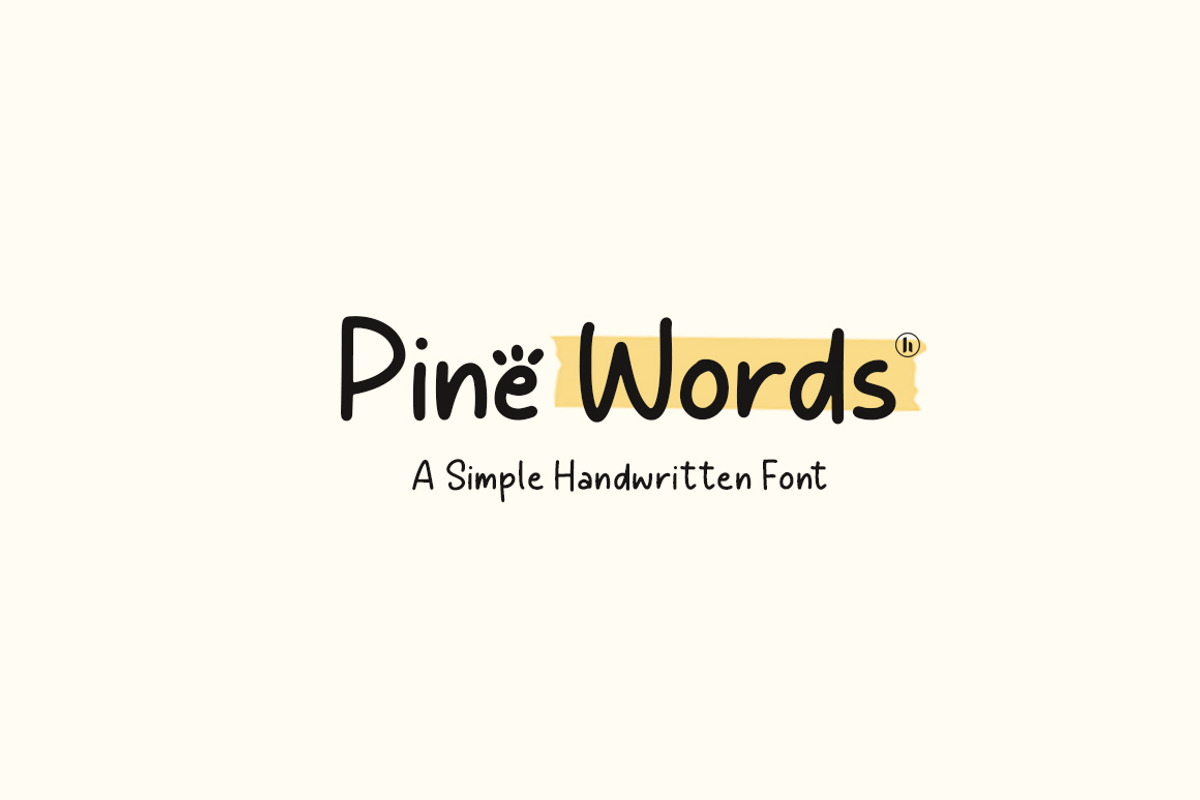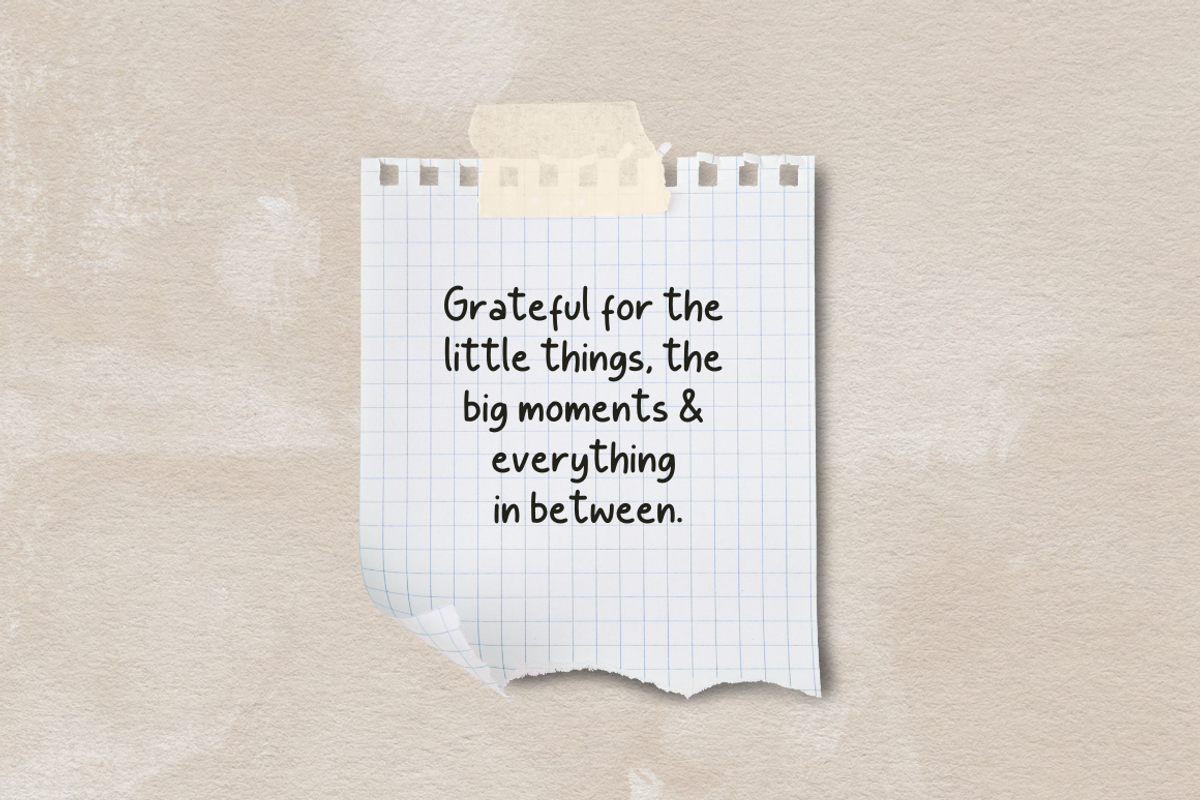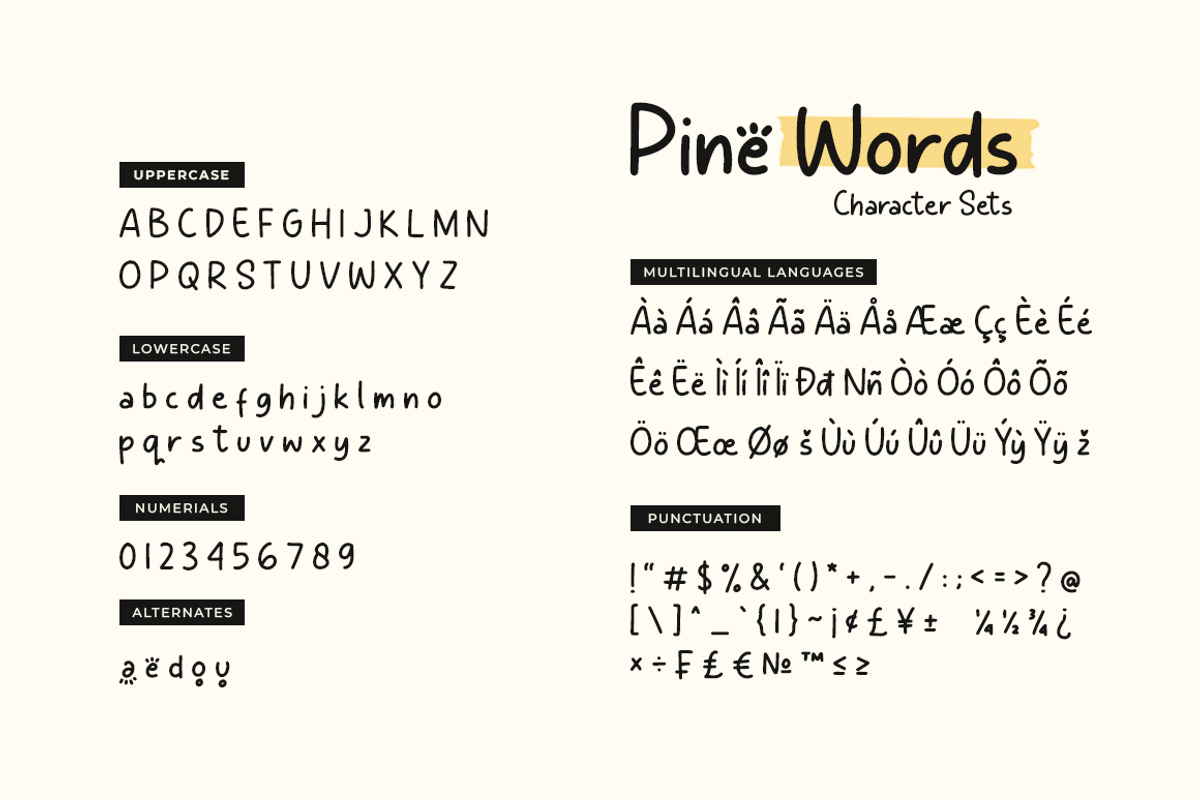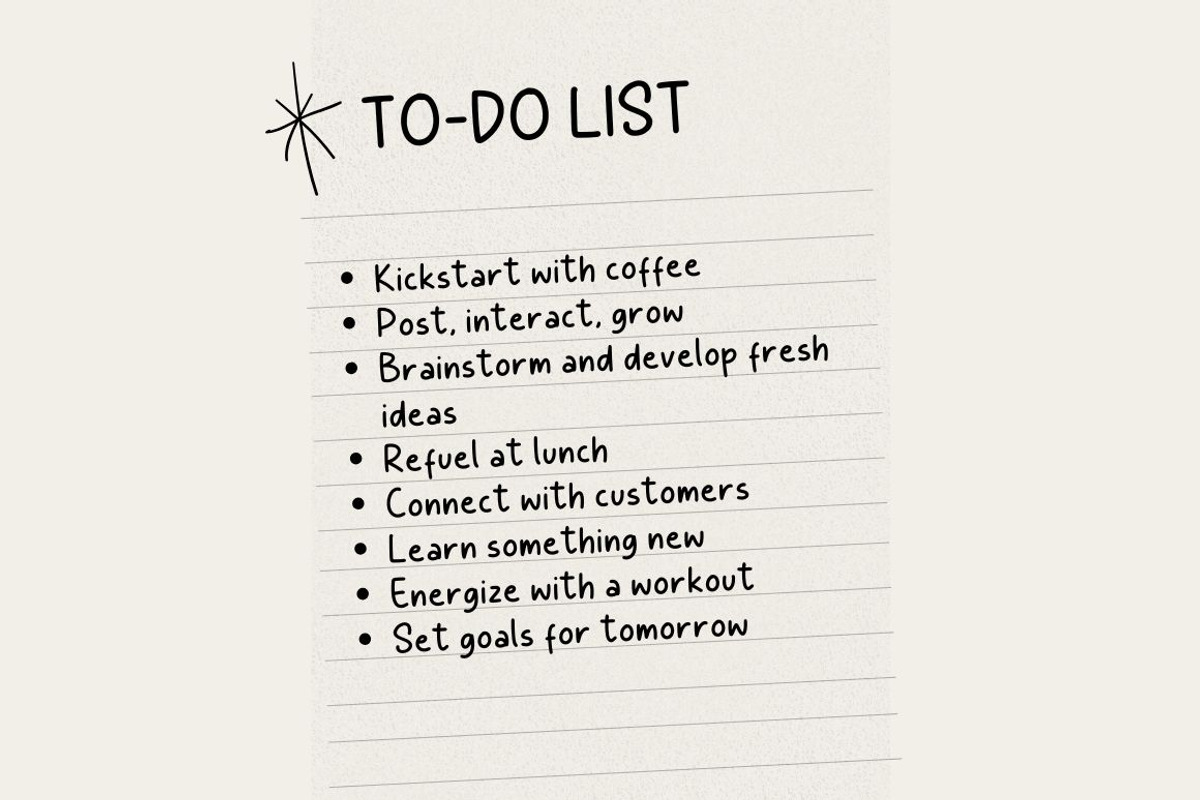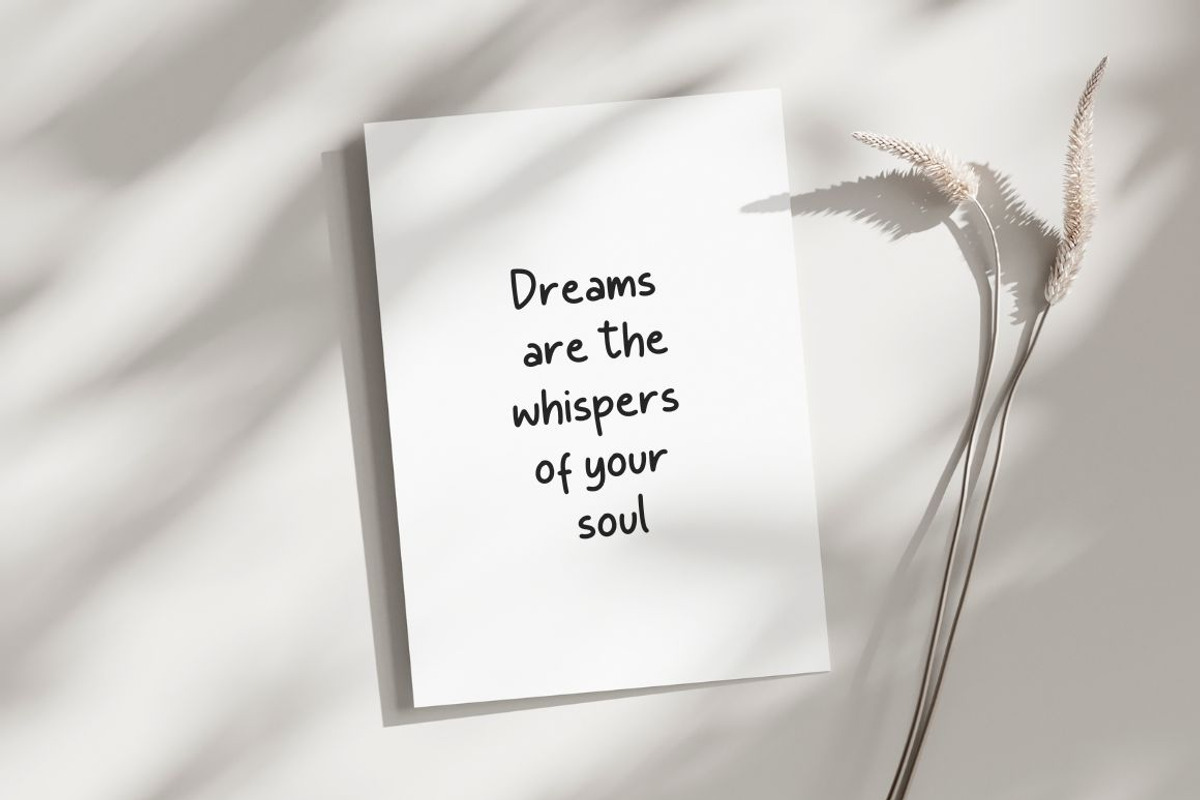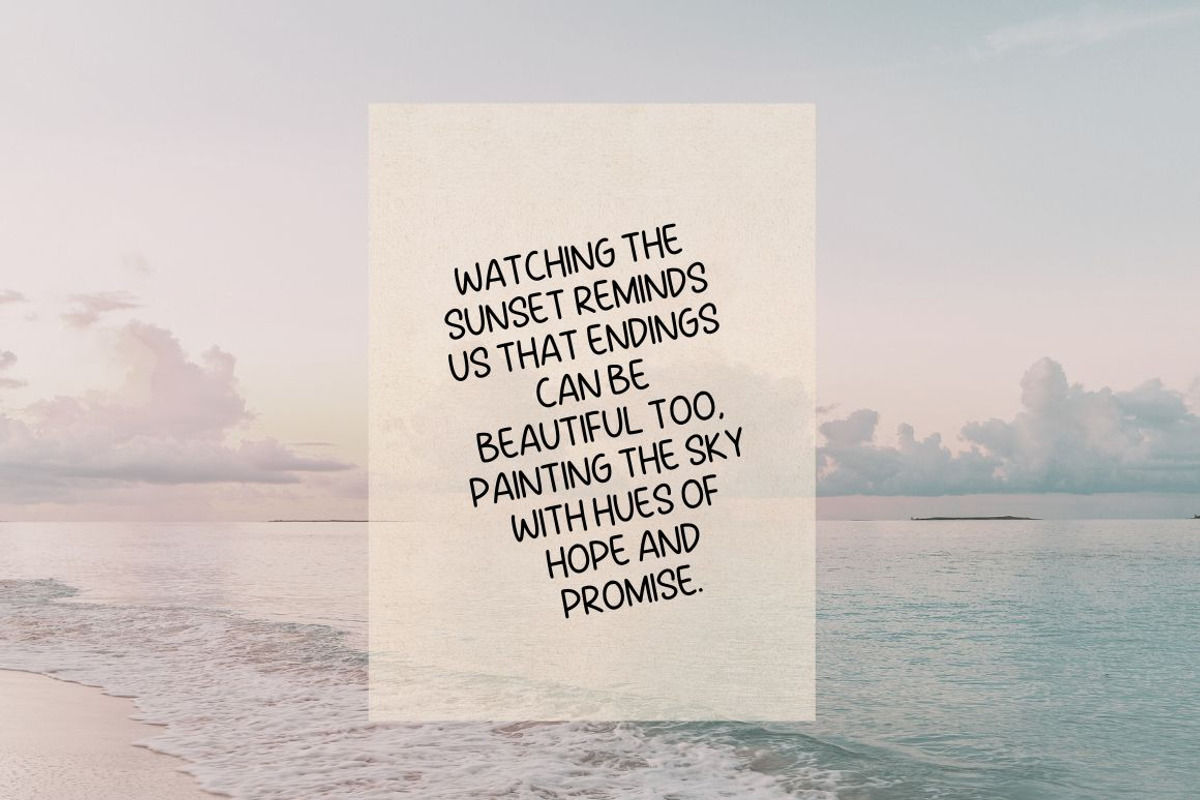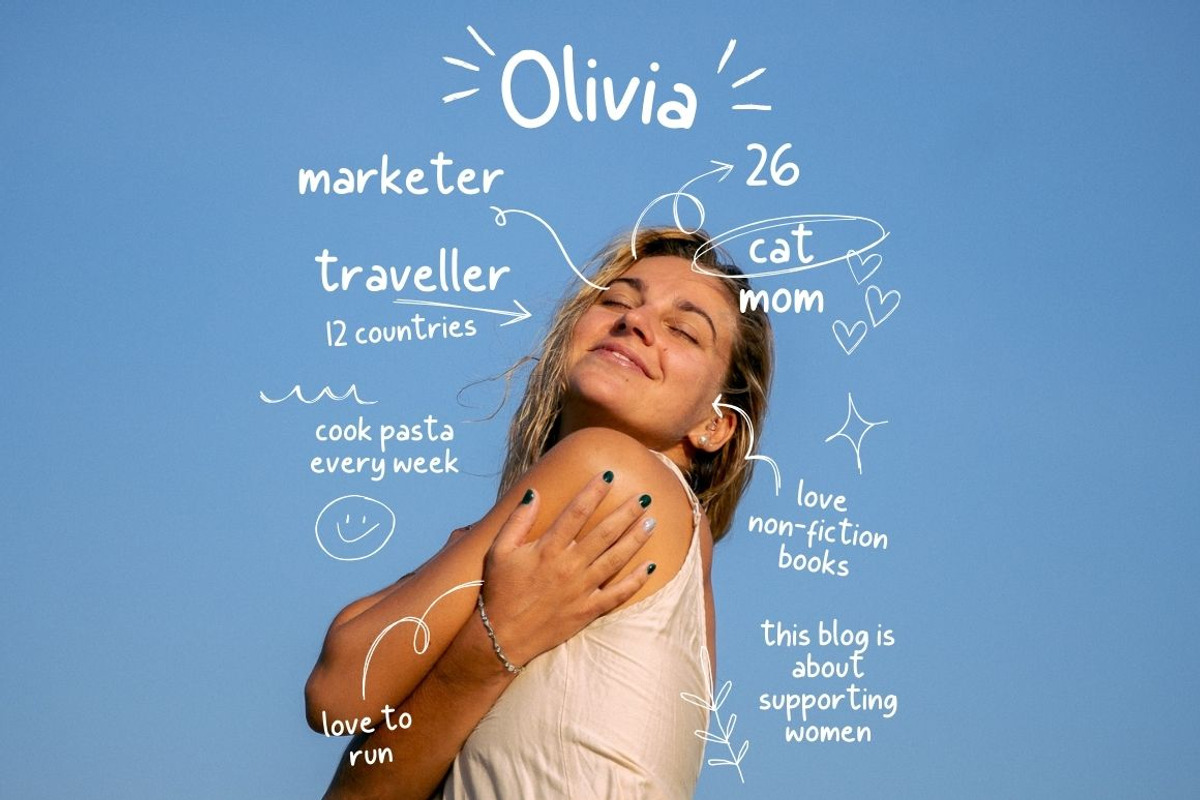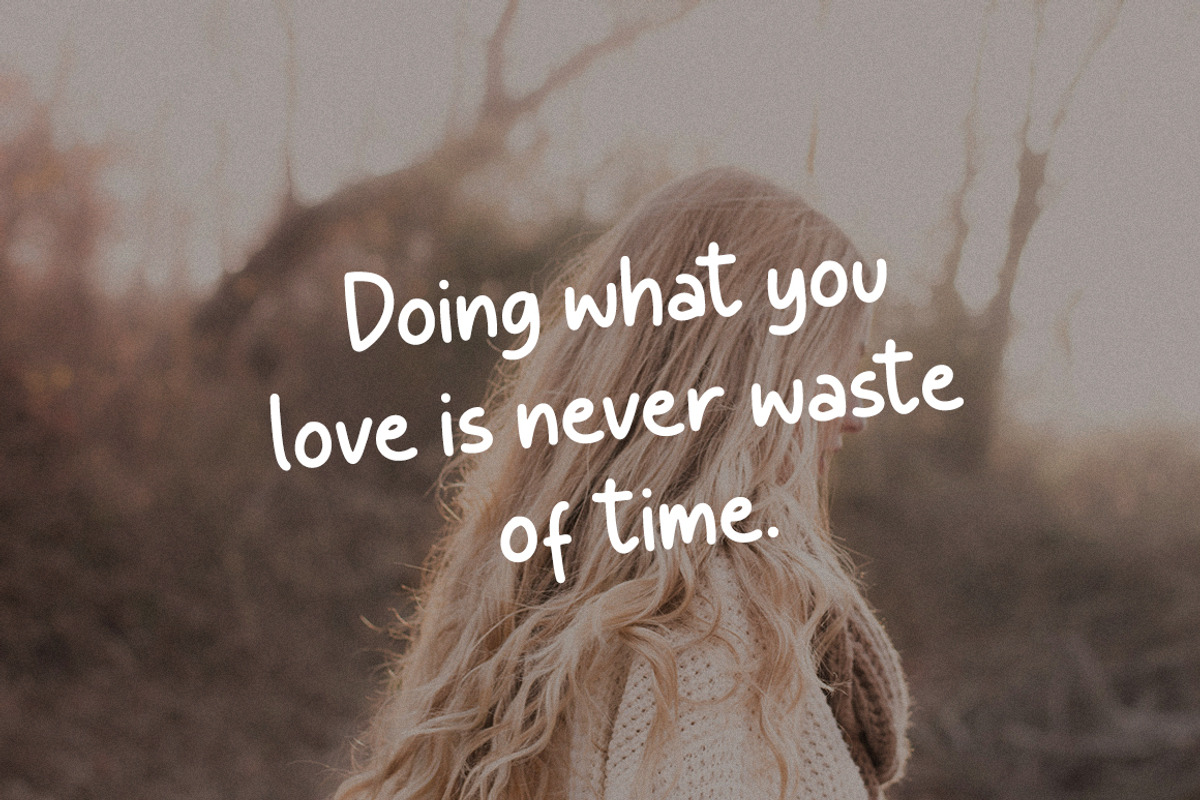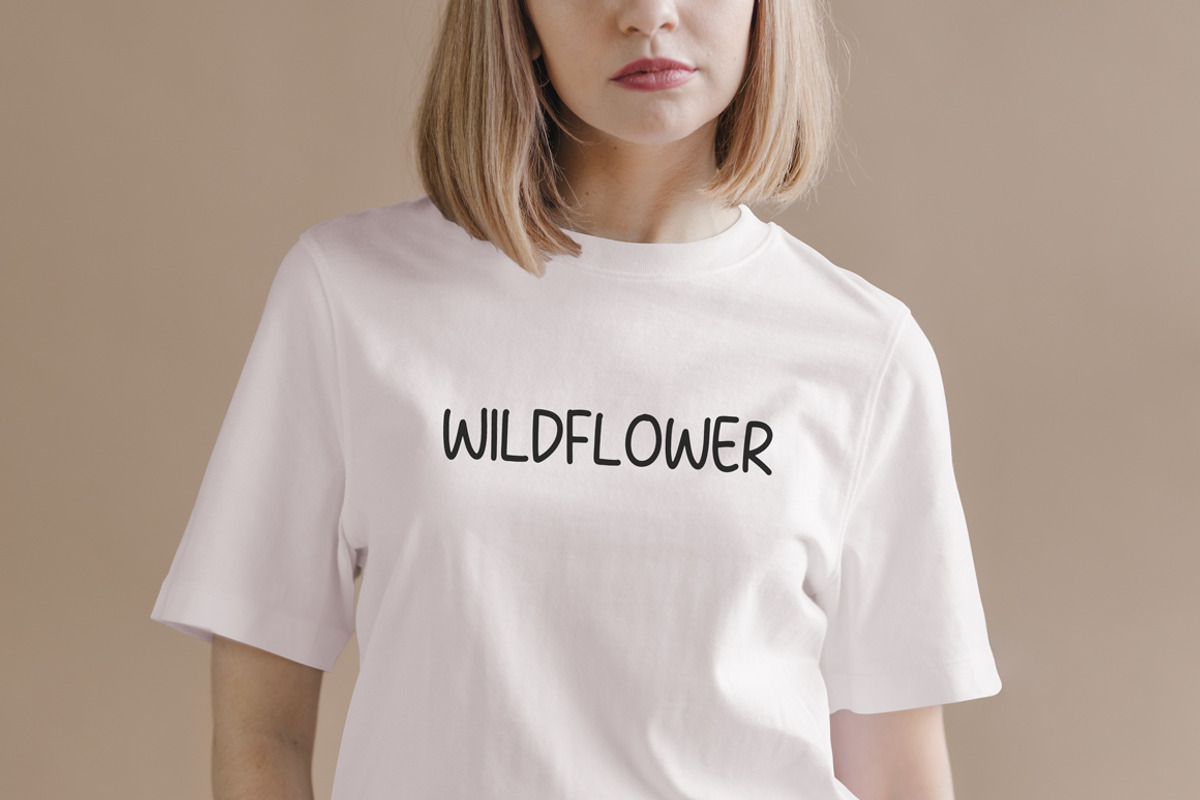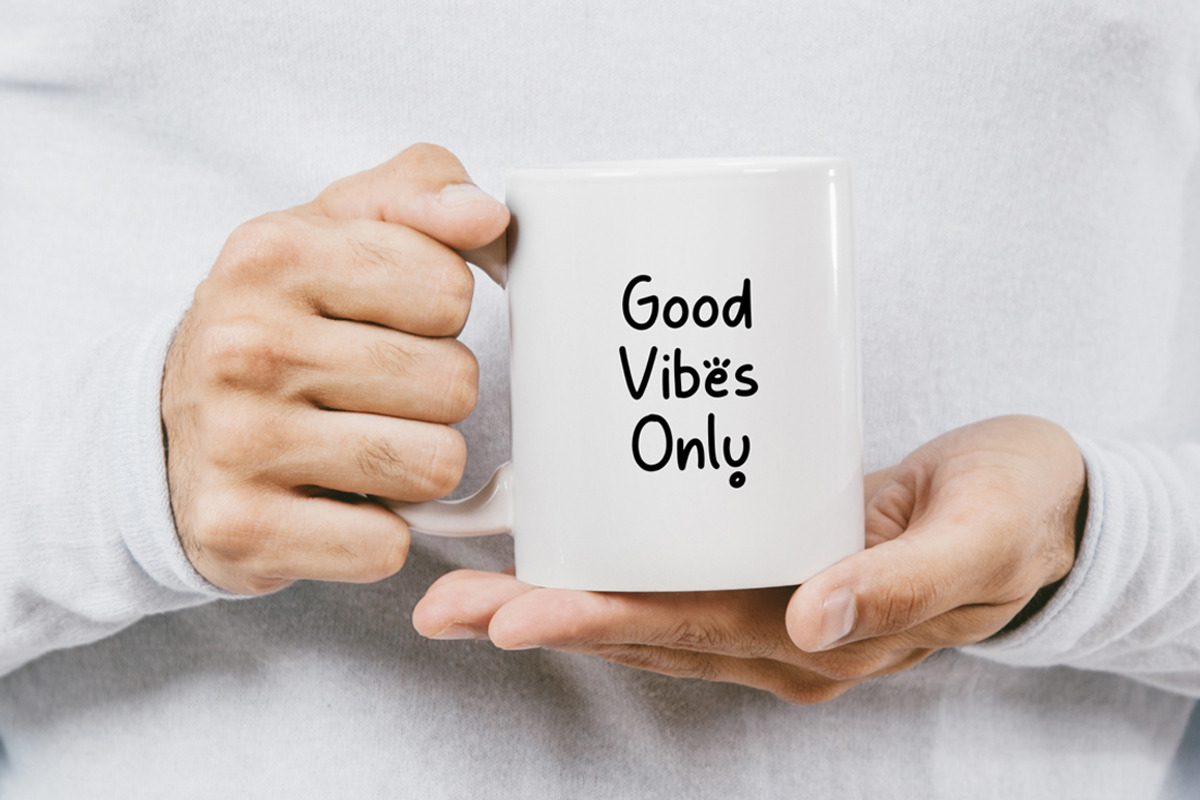
Pine Words Simple Handwritten
Pine Words is a simple handwritten font that exudes adorable charm and is filled with delightful design elements. It possesses a vibrant and irresistibly cute atmosphere, characterized by its simplicity and cuteness that is hard to resist. This font is soft, gentle, and evokes feelings of warmth and love. The Cute Style Font adds a touch of sweetness and playfulness to any project. This font is perfect for goodnotes, school project, SVG design, teachers, stickers, home decoration, quotes, headings, blogs, logos, invitations and more!